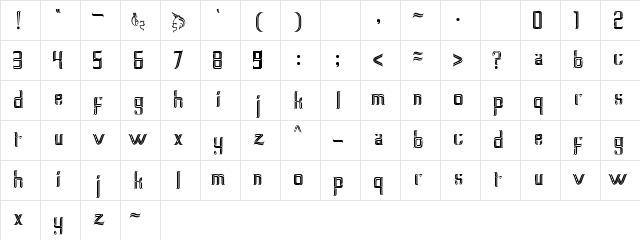
Complete seselendangan Regular glyph index. Displaying only characters natively supported by seselendangan Regular font.
seselendangan is a composed and adaptable typeface that performs quietly and consistently across a wide range of design contexts.